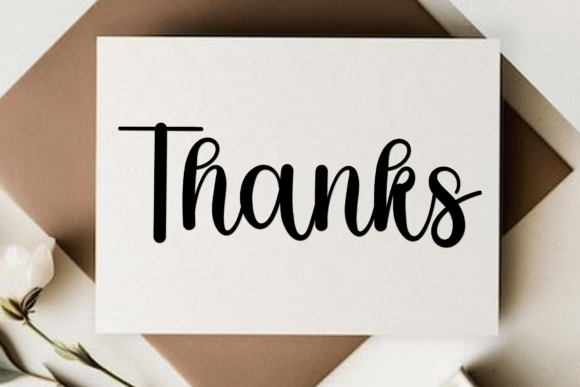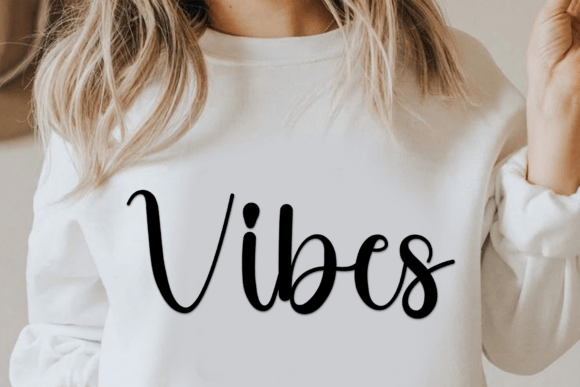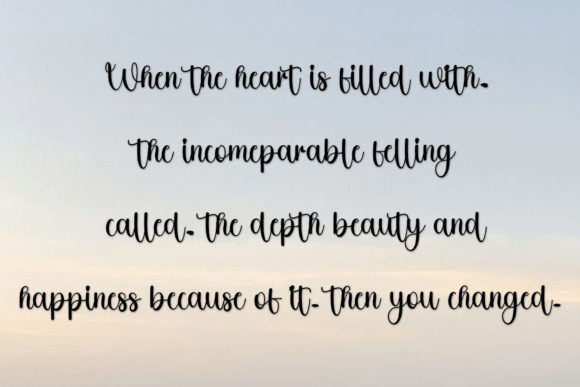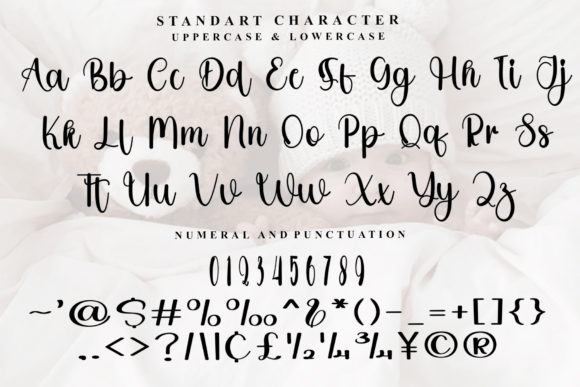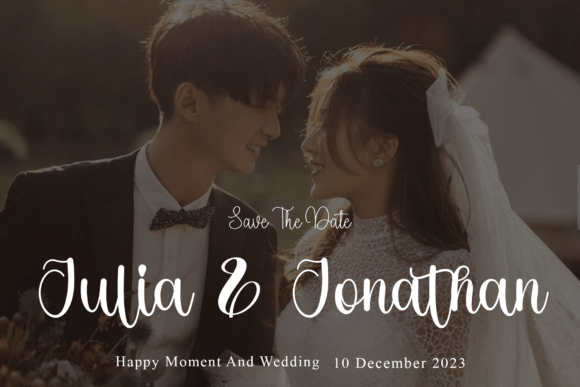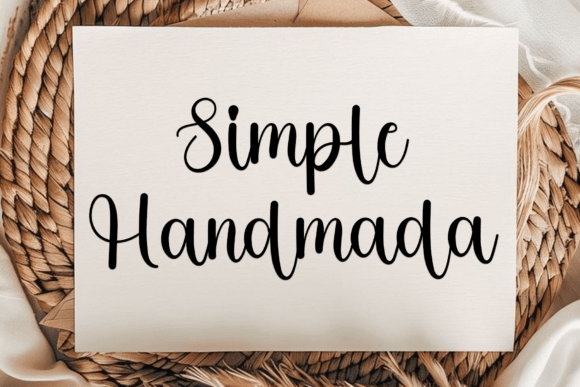
Introducing Farmhouse Font: A Festive and Merry Typeface for the Holiday Season
The holiday season is upon us, and what better way to get into the spirit than with a font that’s as festive and merry as Farmhouse Font? This beautiful typeface is designed to capture the essence of the holiday season, with its decorative elements and whimsical flair. Whether you’re a designer, crafter, or simply someone who loves the magic of the holidays, Farmhouse Font is the perfect addition to your typography collection.
A Font that Adds Enchantment to Your Designs
Farmhouse Font is more than just a typeface – it’s an experience. With its intricate details and playful charm, it adds a touch of enchantment to any design. Imagine creating greeting cards, gift tags, and holiday-themed projects that transport your recipients to a winter wonderland. This font brings a cheerful and nostalgic ambiance to your words, making it perfect for anyone looking to add a little extra magic to their designs.
Farmhouse Font is a versatile typeface that’s perfect for designers and crafters alike. Whether you’re creating digital or physical products, this font is sure to impress. Use it to create:
- Greeting cards that stand out from the crowd
- Gift tags that add a personal touch
- Holiday-themed projects that capture the spirit of the season
- Social media graphics that spread cheer and joy
- Packaging that adds a touch of whimsy to your products
What Sets Farmhouse Font Apart
So what makes Farmhouse Font so special? Here are just a few things that set it apart:
- Unique and intricate design elements
- Whimsical and playful charm
- Perfect for holiday-themed projects and designs
Now that you’ve got Farmhouse Font, here are a few tips for getting the most out of this beautiful typeface:
- Experiment with different sizes and colors to add visual interest
- Pair Farmhouse Font with other fonts for a unique and eye-catching look
- Use the glyphs and ligatures to add a touch of whimsy to your designs
- Try using Farmhouse Font for non-holiday projects – its playful charm works for any occasion!
Whether you’re a seasoned designer or just starting out, Farmhouse Font is a great way to add some extra sparkle to your projects. So go ahead, get creative, and show the world what you can do with this beautiful and festive typeface!